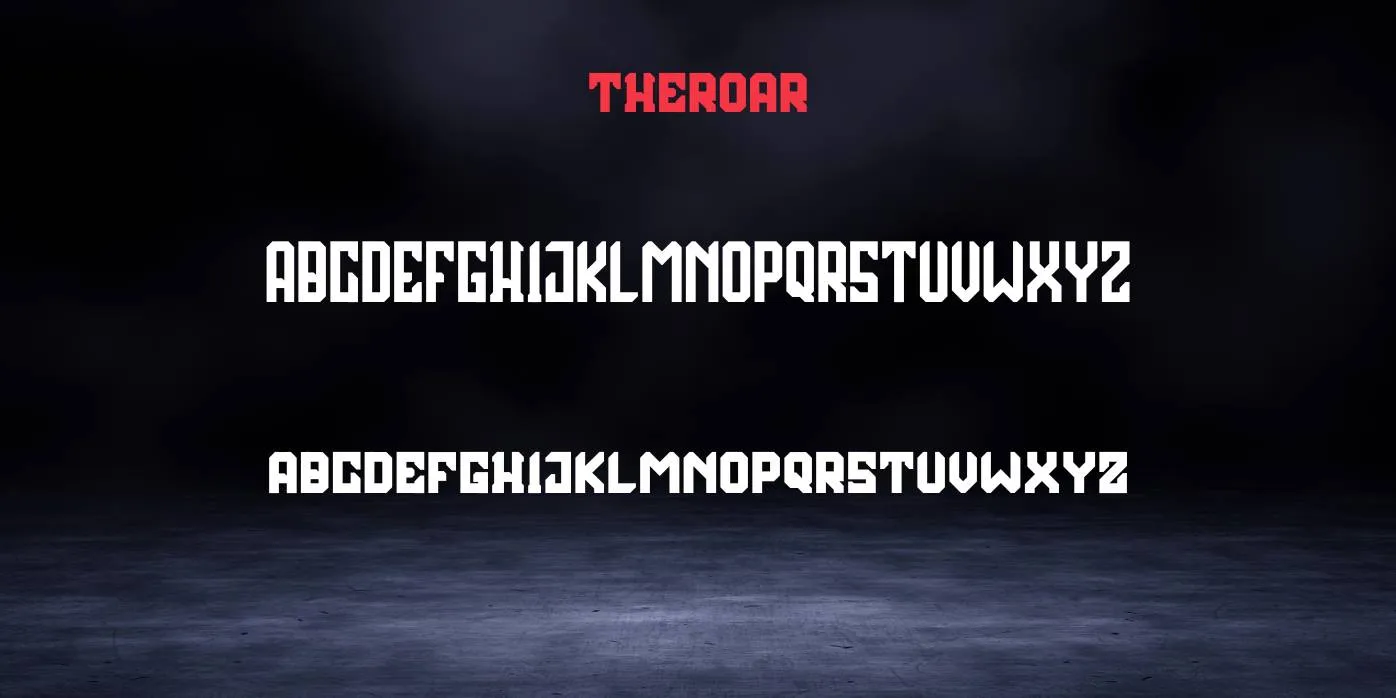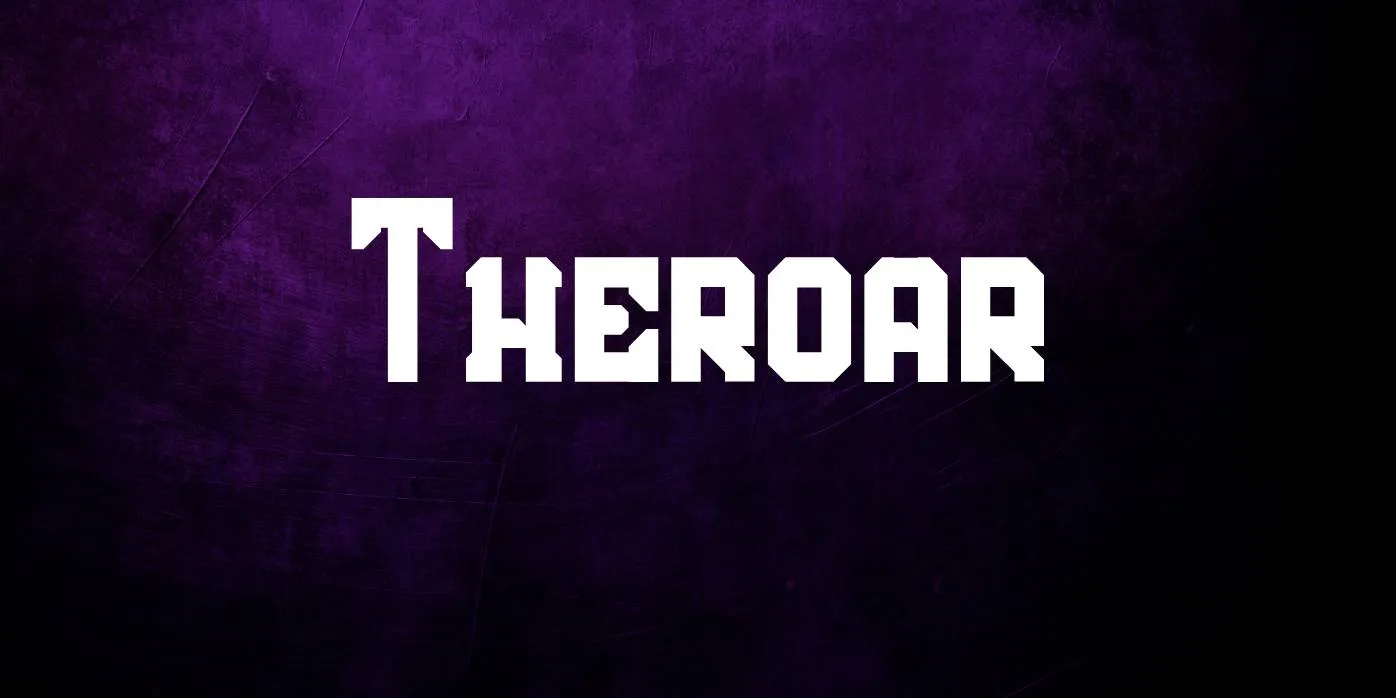
Theroar Font
Theroar Font has an elegant texture look appearance. It was designed by Yudi Pratma Chandra. This font has 132 glyphs and 1000 units per Em. Embedding rights are for the permanent installation of this font.
The weight of this font is Bold and the width is condensed. The writing direction of this font is left to right including neutrals. The Pattern nature of this font is regular. It is a modern font with a unique style.